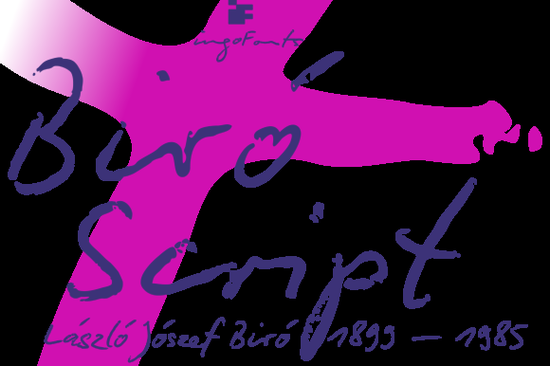
If you’re looking for a handwritten font that feels personal but still holds its own in bold designs, Biró Script Font is worth checking out. It’s got that authentic, human touch the kind of lettering that looks like it was just pulled from a sketchbook or journal but with enough weight and presence to stand out on posters, packaging, or social media graphics. Whether you're designing wedding invites, branding a small shop, or making custom merch, Biró brings personality without being overly fussy.
What makes this font different from other script fonts?
Most script fonts lean either super elegant or super casual. Biró sits right in the sweet spot modern, slightly rough around the edges, but intentional. The strokes feel natural, like they were drawn quickly with a brush pen, yet every character has been carefully crafted for legibility and balance. You’ll find it especially useful if you want something that doesn’t look “designed by committee.”
Who should be using Biró Script Font?
How does it pair with other fonts?
Biró plays well with clean sans-serifs. Try pairing it with something minimalist like Montserrat, Lato, or even a geometric typeface. The contrast between structured and spontaneous creates visual interest without clashing. Avoid pairing it with another script unless you’re going for intentional chaos and even then, tread lightly.
One trick: use Biró for headlines or key phrases, then switch to a simple sans-serif for body text. This keeps your message clear while letting the font’s character shine where it matters most.
Pro tip: Always test your design at actual size before printing or publishing. Some script fonts lose charm when scaled too small, but Biró holds up surprisingly well thanks to its bold weight and open letterforms.
Any limitations I should know about?
It’s not the best pick for long paragraphs scripts rarely are. Also, while it includes basic punctuation and numerals, don’t expect extended language support or stylistic alternates unless specified in the product listing. For most English-language projects, though, you’re covered.